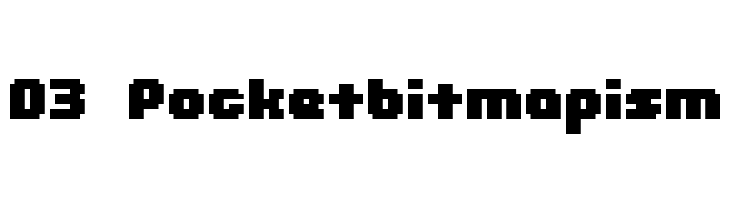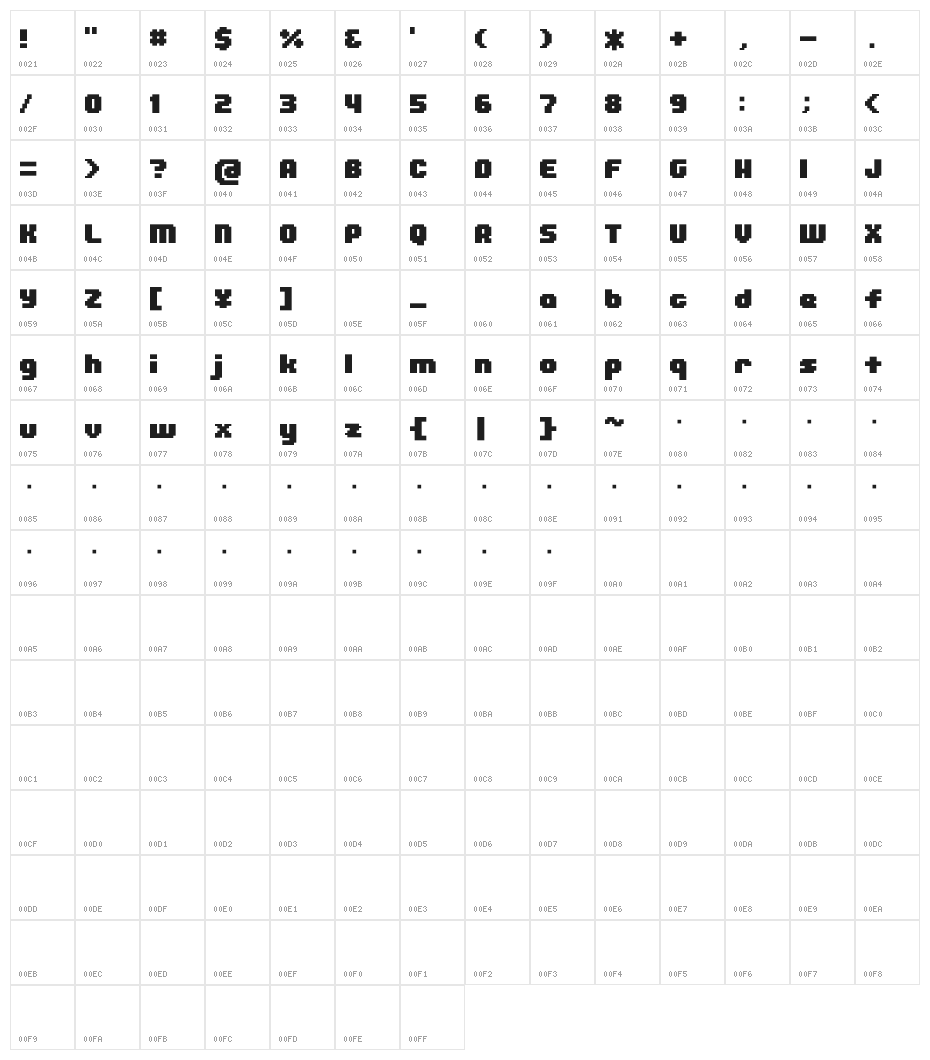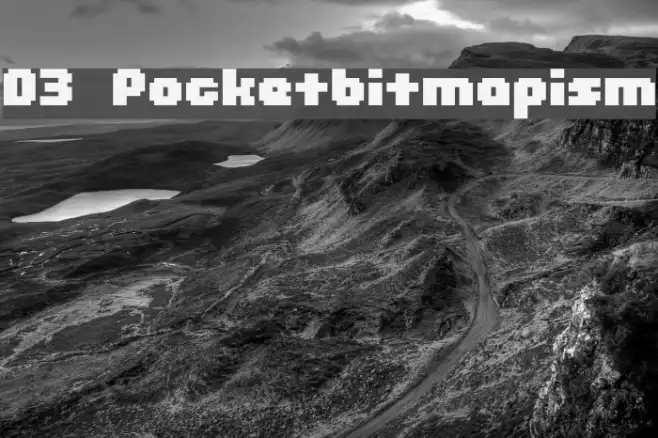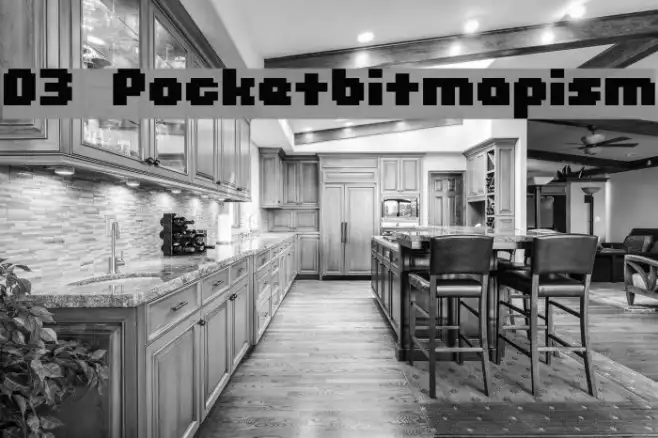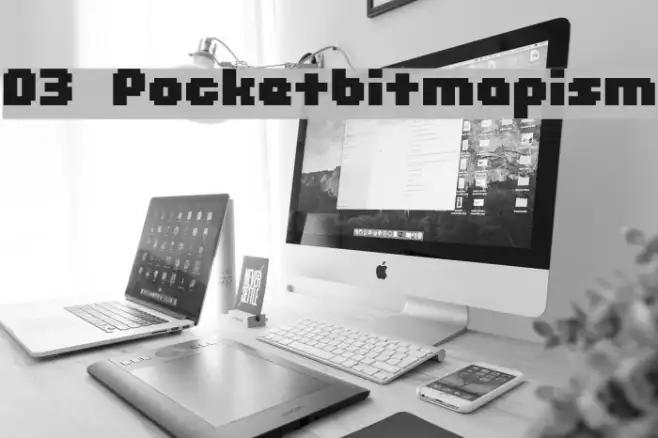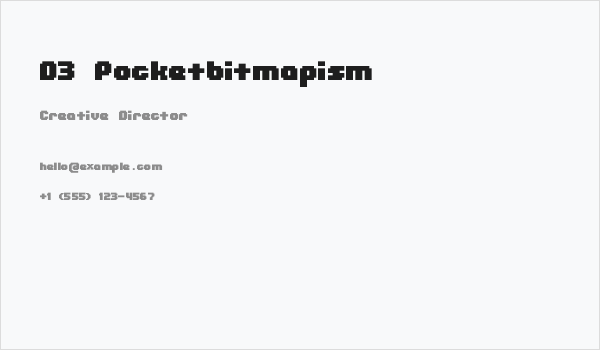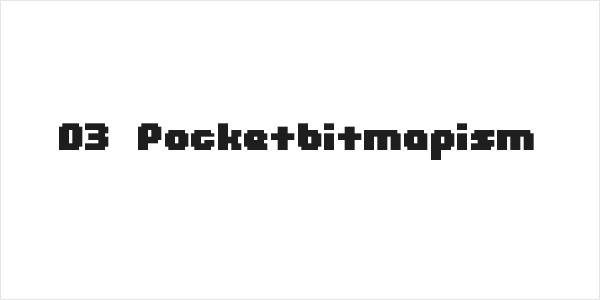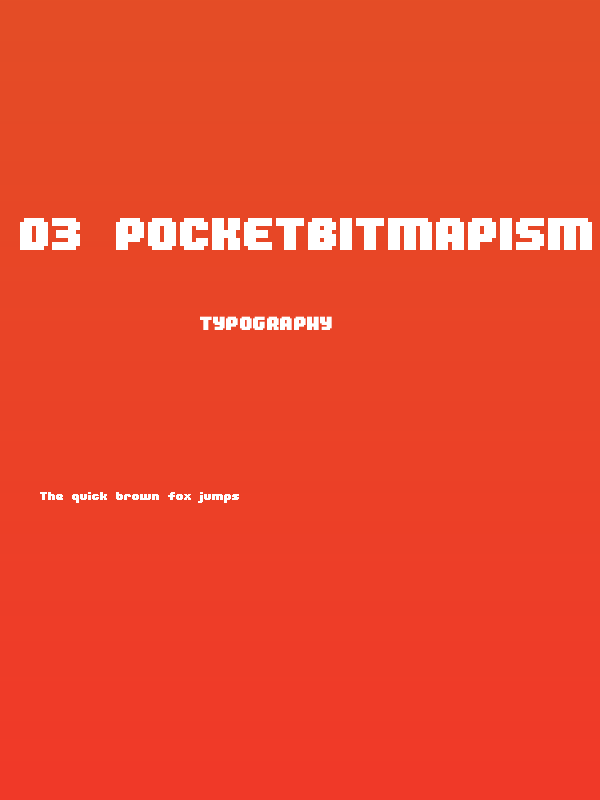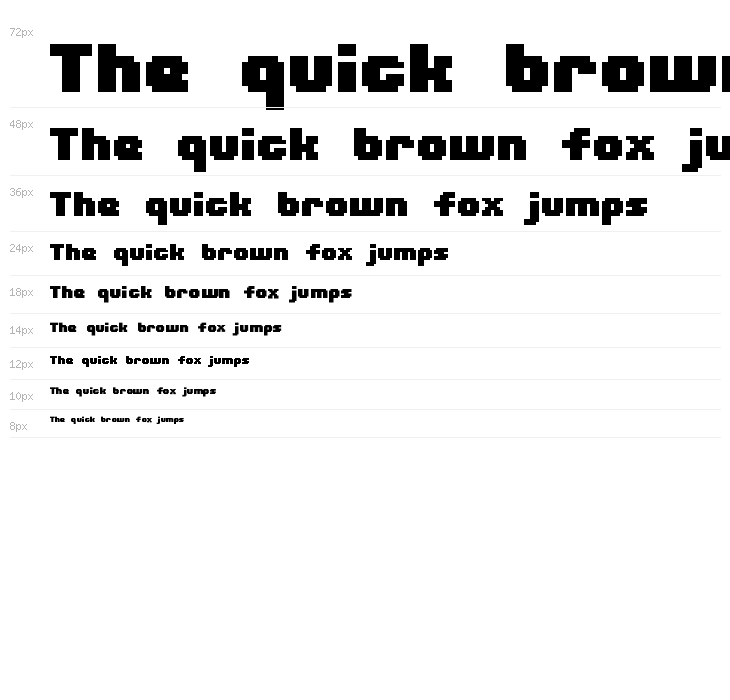
D3 Pocketbitmapism Font
D3 Pocketbitmapism Description
This font features a bold, pixelated style reminiscent of early digital and video game typography. Each character is constructed with a blocky, grid-like appearance, giving it a distinctly retro and digital feel. The uppercase and lowercase letters maintain a consistent height and width, creating a uniform look across the alphabet. Numbers and special characters follow the same pixelated design, ensuring cohesion throughout the typeface. The font's simplicity and geometric shapes make it highly legible, even at smaller sizes, while its nostalgic aesthetic evokes a sense of classic gaming and digital art.
| Proposed Projects | Ideal for retro video game designs, digital art projects, tech-themed posters, and any creative work seeking a nostalgic digital feel. |